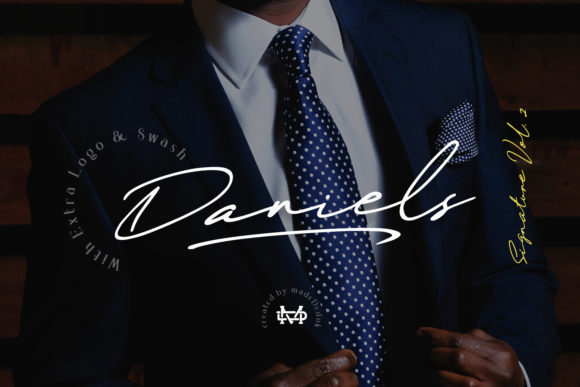
Get ready to add a touch of captivating elegance to your digital creations with Daniels Font, the exquisite signature font that will transform your designs into masterpieces. Crafted by the talented madeDeduk, Daniels exudes a natural handmade charm that will elevate your projects to new heights.
With an impressive array of over 170 ligatures, Daniels empowers you to effortlessly create stunning letter combinations that flow seamlessly, adding an authentic and personal touch to your work. Its versatility extends across a wide range of design applications, making it the perfect choice for poster designs, book covers, merchandise, fashion campaigns, and so much more.
Imagine your designs adorned with the graceful curves and enchanting strokes of Daniels Font. Its captivating presence will draw attention to your creations, leaving a lasting impression on your audience. Whether you're creating posters that demand attention, book covers that entice readers, or newsletters that inspire, Daniels will elevate your designs with its undeniable charm.
Embrace the beauty of Daniels Font today and unlock the endless possibilities it offers. Let your creativity soar as you add a touch of sophistication and allure to your digital masterpieces. Experience the transformative power of Daniels and elevate your designs to new levels of excellence.